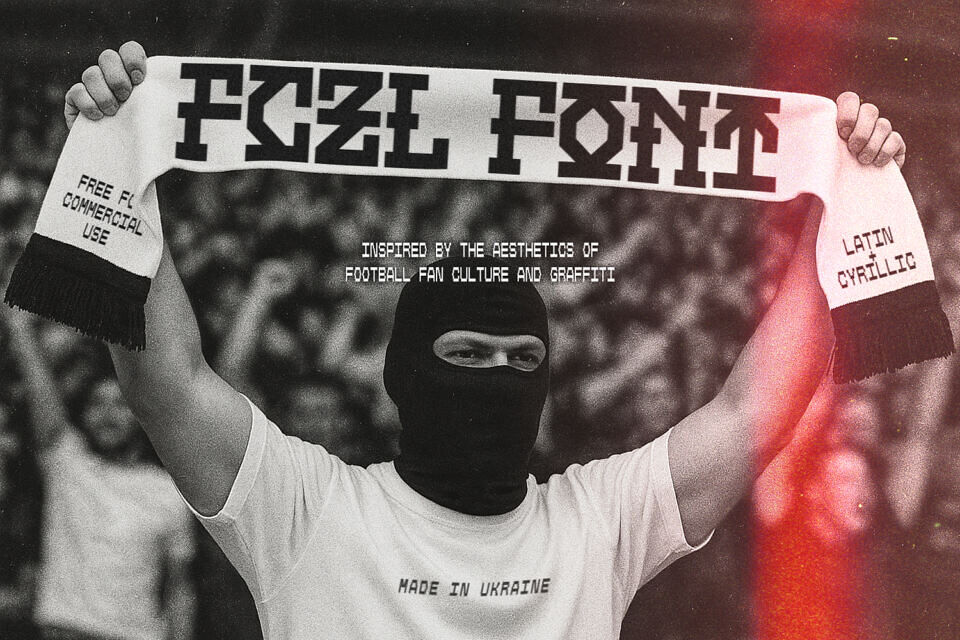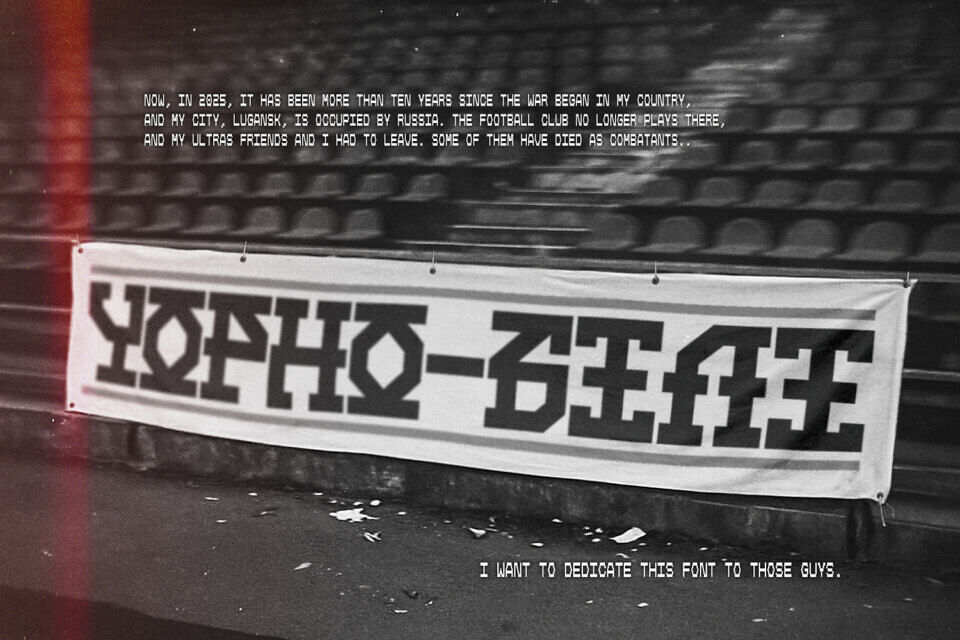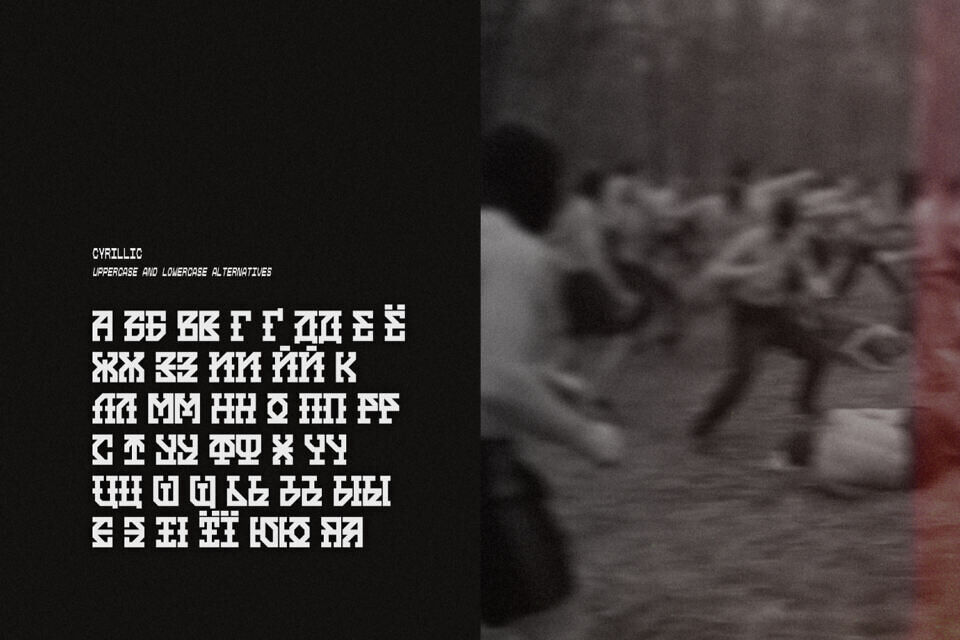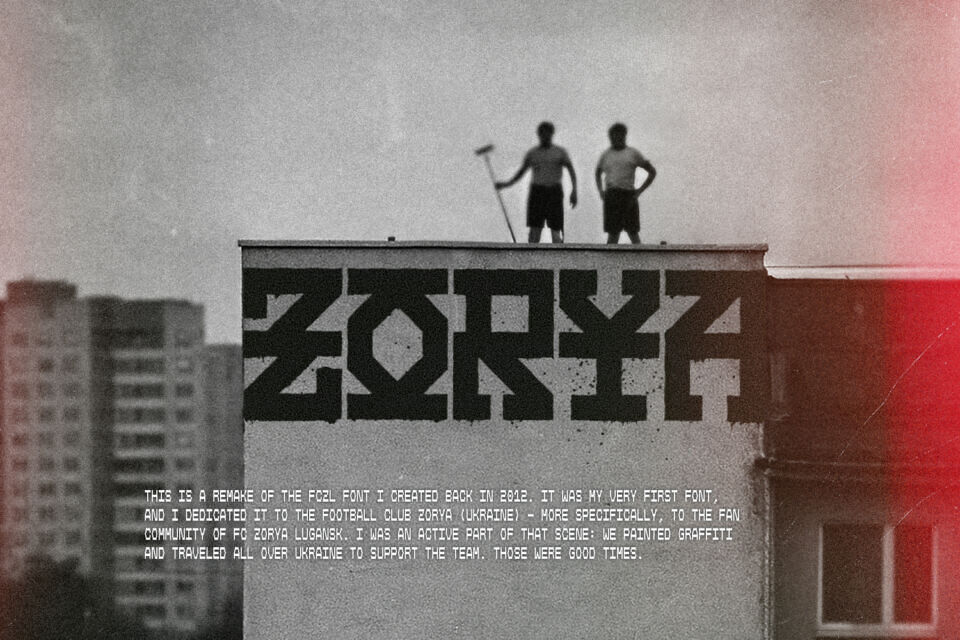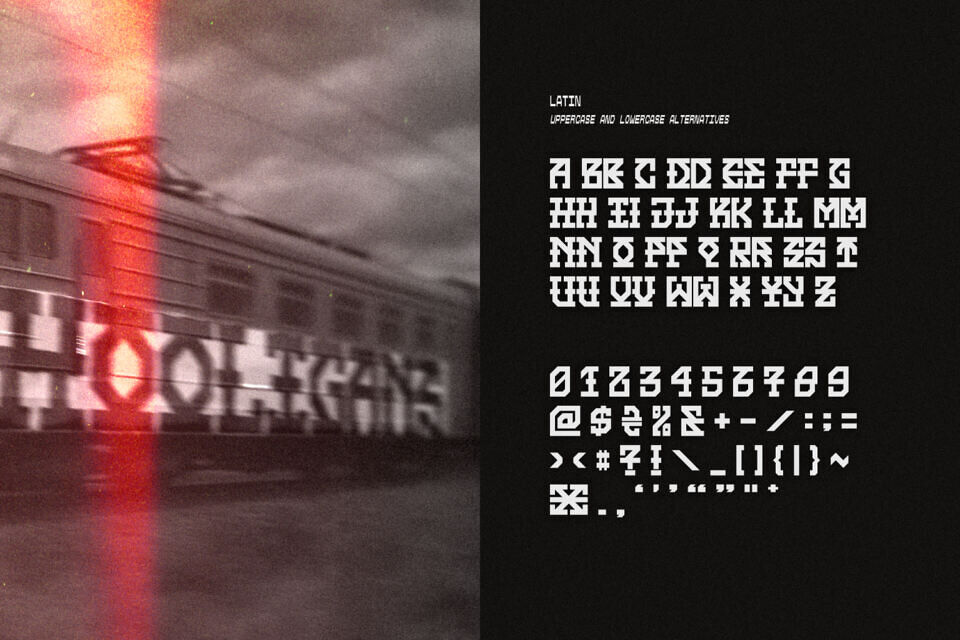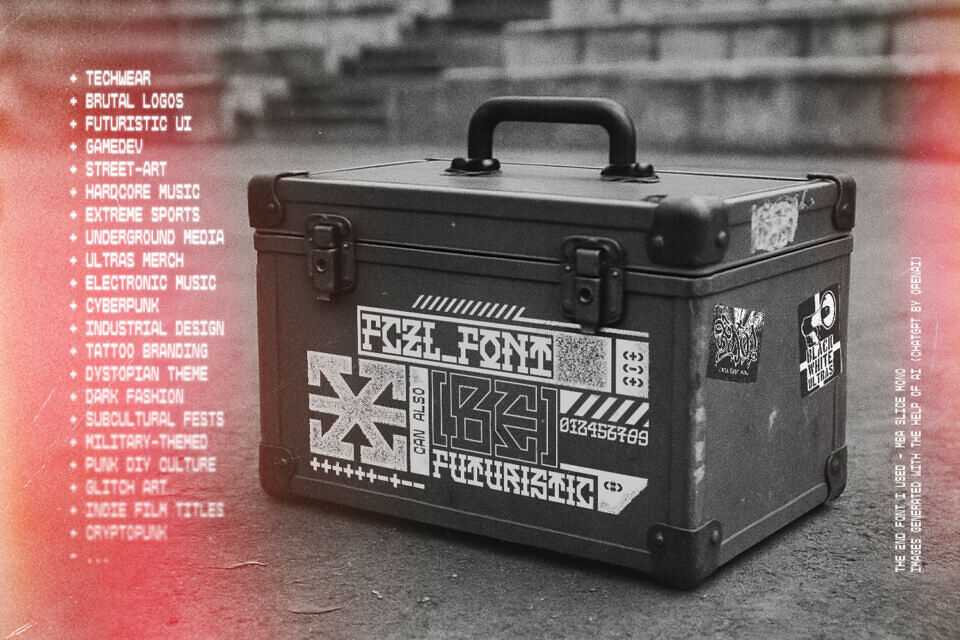
FCZL font is a modular geometric typeface inspired by the aesthetics of football fan culture and graffiti.
Originally created in 2012 by Ukrainian designer Koroletov for FC Zorya Lugansk’s ultras, it was remade in 2025 as a tribute to friends lost during the war.